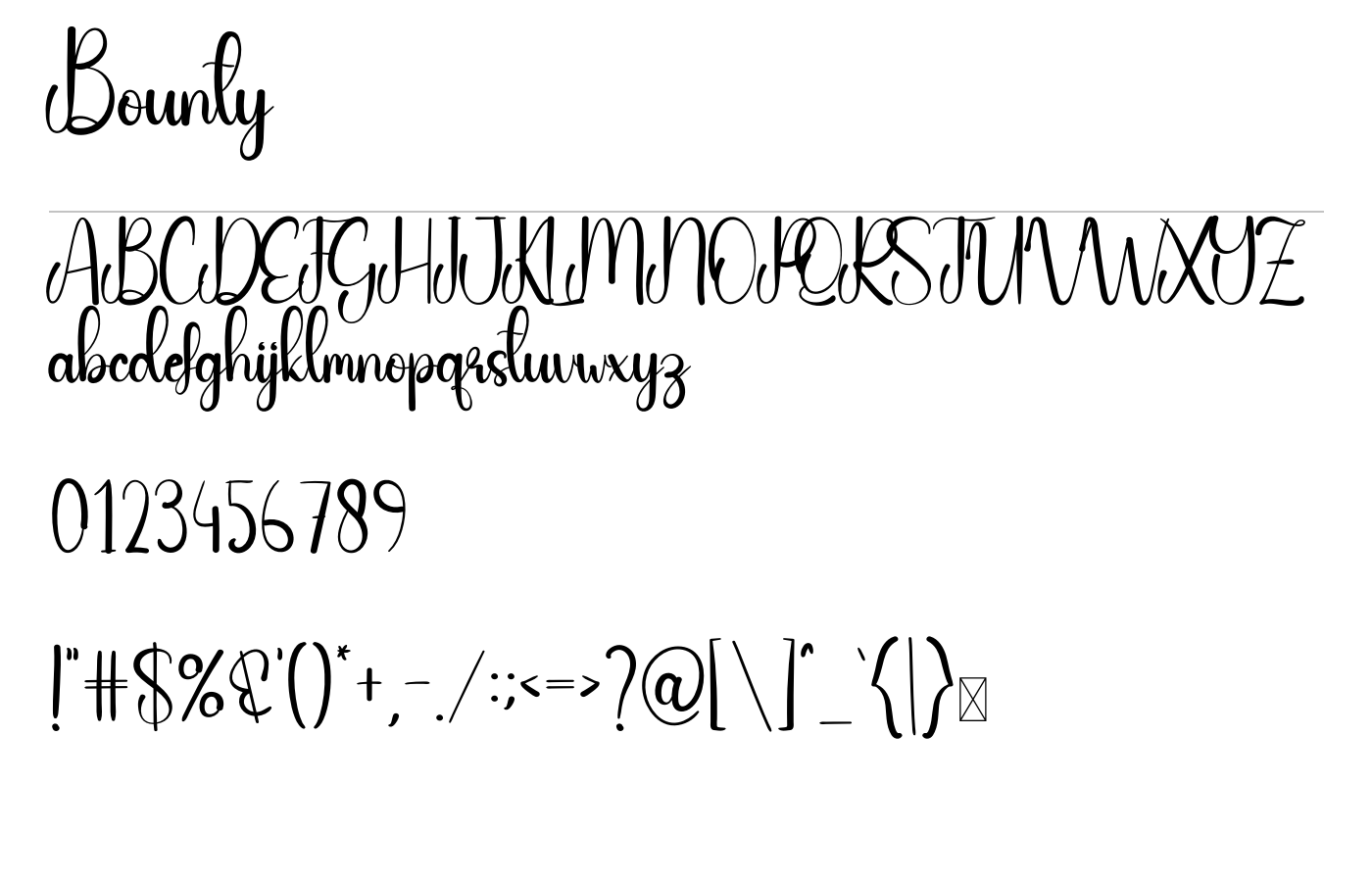
Bounty is a whimsical, handwritten script font with a tall, slender appearance and playful looping strokes that bring a casual, friendly vibe. Its uneven lines and flowing characters make it ideal for creative projects, invitations, or branding that aims for a personal, approachable feel. This font works well in headlines and decorative text where a touch of character and charm is desired.
Bounty Font
About Bounty Font
| Font family | Bounty Font |